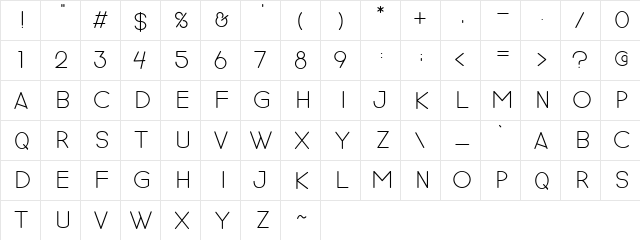
revilo san Regular
Design Context for revilo san Typeface
revilo san is a composed and adaptable typeface that performs quietly and consistently across a wide range of design contexts.
Pro Tip: Use revilo san in both headline and body roles to test its range before committing to a single application.